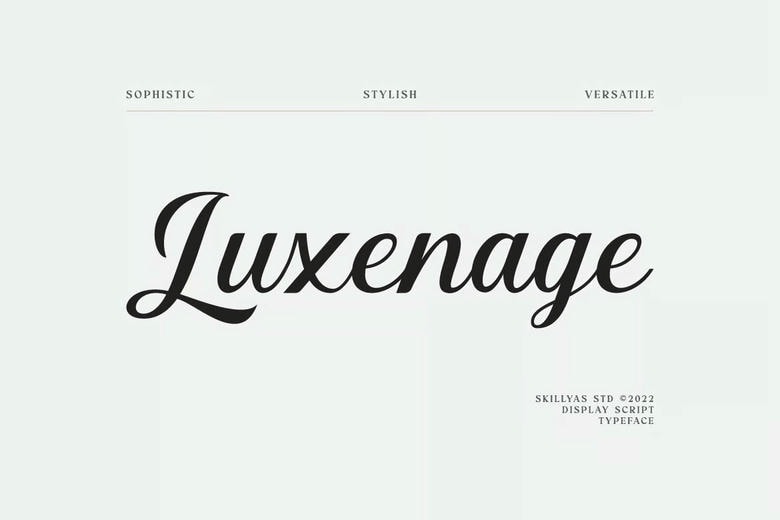
Luxenage Font
Luxenage is a script latest font that we have created with care. We do our best to make this font suitable for you. It will add a touch of luxury to any design project you want to create! This font is perfect for beautiful logos, posters, vintage signage, magazines, photography, vintage lettering and any other design projects.
Luxenage Script Font